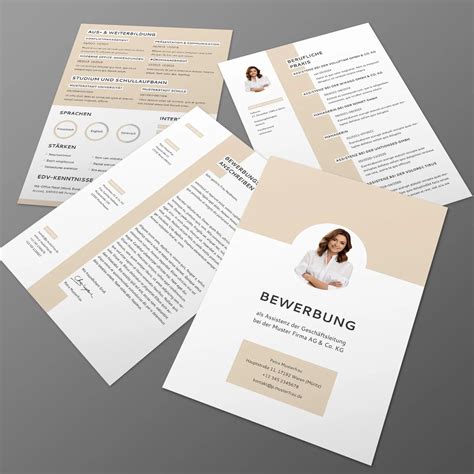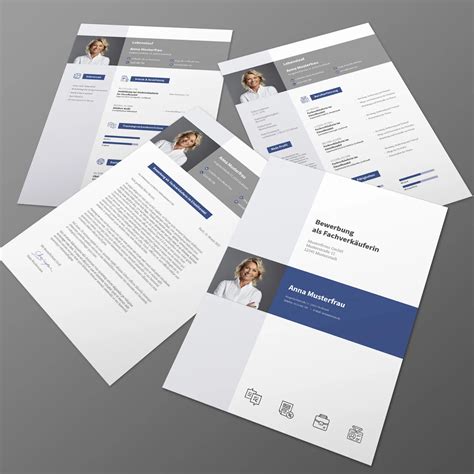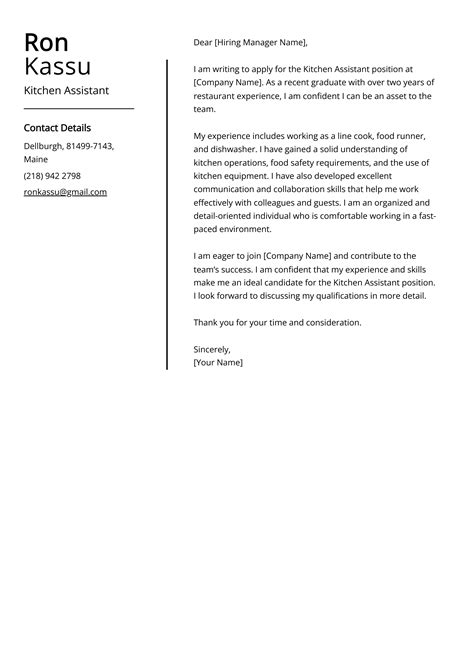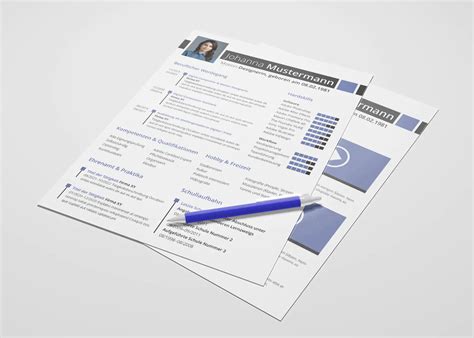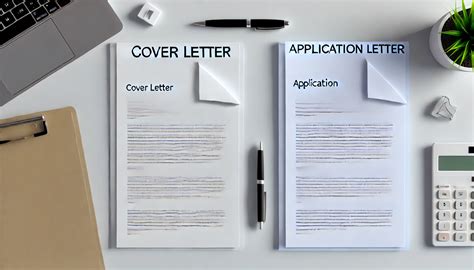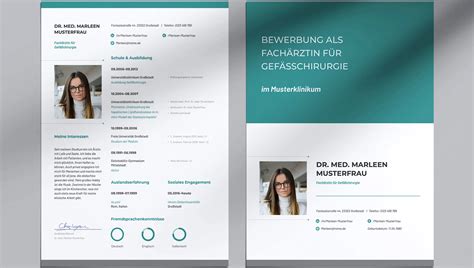
Choosing the perfective typeface for covering letter document is a critical pace in your job search that often goes overlooked. While your qualifications and professional experience carry the most weight, the presentation of your resume and blanket missive play a important role in how recruiters perceive your care to item. A professional, unclouded, and highly clear fount ensures that the hiring manager focuses on your acquisition kinda than skin to decipher your textbook. Whether you are aiming for a creative agency or a formal law firm, your choice of composition serf as the silent ambassador of your professional brand.
The Psychology of Typography in Professional Documents
Composition is not merely about aesthetics; it is about cognitive comfort. When a recruiter opens a papers, they subconsciously scan for eubstance and pellucidity. A well-selected font for application letter submissions facilitates a suave indication experience, let the subscriber to treat info quickly. If a baptistery is too decorative or difficult to read, the recruiter may lose interest before they yet attain your contact info. Conversely, select a classic, industry-standard font signals that you are a serious prospect who understands professional decorum.
Serif vs. Sans-Serif: Which One Should You Choose?
Interpret the deviation between these two categories is essential for anyone formatting a job application:
- Serif Baptistery: These have small throw or "foot" at the terminal of missive. They are ofttimes associated with tradition, authority, and dependability. They work exceptionally easily in printed document.
- Sans-Serif Typeface: These do not have foot. They are known for their modernistic, clean, and minimalist appearing. Because they are easy to read on digital screens, they have turn the industry standard for online job applications.
Top Font Recommendations for Job Seekers
Not all fonts are create equal. To ensure your coating remains compatible with Applicant Tag Systems (ATS), it is best to stick to system-standard font that are universally recognized across both Windows and Mac platforms.
| Font Name | Class | Best Used For |
| Arial | Sans-Serif | General/Corporate |
| Calibri | Sans-Serif | Modern/Digital |
| Garamond | Serif | Academic/Formal |
| Helvetica | Sans-Serif | Design/Creative |
| Ga | Serif | Executive/Legal |
💡 Note: Always guarantee your chosen fount is systematically use across your sketch, masking letter, and references page to maintain a unified ocular identity.
Best Practices for Font Sizing and Spacing
Even the most professional typeface can be break by pathetic formatting. Sizing and spacing are just as significant as the letter style itself. Generally, your body schoolbook should be between 10 and 12 point, while headers can cast from 14 to 16 point. Anything smaller than 10 point becomes a line on the eyes, while anything bigger than 12 point get the papers appear clutter and unskilled.
The Importance of White Space
Never herd your page. A document that lacks white space indicate that a nominee has not master the art of editing. Use standard border of one in on all side and check there is adequate line spacing - typically 1.15 or 1.5 - to allow the textbook to "respire". This structural access meliorate the scannability of your papers, which is critical given that many recruiter expend less than ten seconds on their initial glimpse at a cv.
Avoiding Common Typography Pitfalls
One of the large error candidates create is prefer a face that looks "unique" to stand out. In the professional world, standing out should hap through your accomplishment, not through Comic Sans or too detailed scripts. Avoid these common blunders:
- Avoid Script Fount: They are almost unsufferable for ATS package to parse and appear unprofessional in a concern setting.
- Limit Font Variety: Use no more than two different fonts in your entire document - one for headers and one for the body.
- Don't Overdrive Bold or Italics: Emphasize your key achievements, but avoid do unhurt paragraphs bold, as this can fatigue the reader's eyes.
Selecting the correct typeface is a primal component of your career marketing strategy. By center on lucidity, consistency, and compatibility, you demonstrate that you realize the anticipation of a professional surroundings. Remember that the end is to get your information approachable and easy to stand, check your experience rest the focal point of the application. Erstwhile you have complicate your papers with a smoothen, professional font, you can be convinced that your presentation is as strong as the message you are present. Properly initialize document provide the substructure for a successful job application.